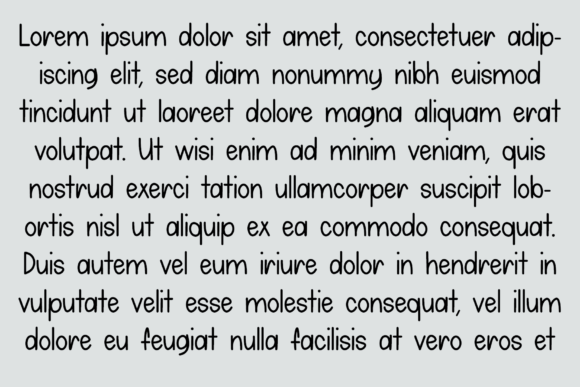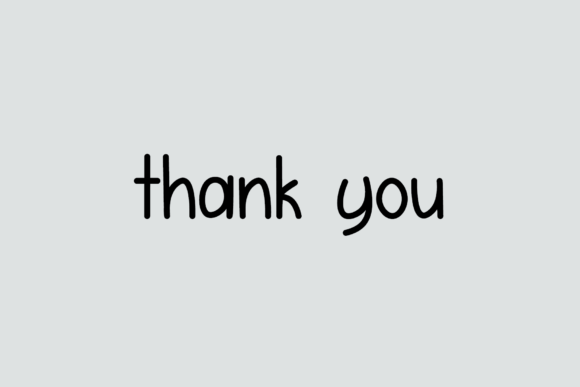
The Perfect Font for a Whimsical Touch
There’s nothing quite like the thrill of finding the perfect font for a design project. It’s like stumbling upon a hidden treasure that instantly elevates your work from ordinary to extraordinary. For me, it happened when I discovered the Geneva Font – a delightful, handwritten typeface that adds a touch of playfulness to any design.
Geneva Font is more than just a pretty face; it’s a versatile tool that can bring a smile to your audience’s face. Whether you’re creating a logo, wedding invitation, or advertisement, this font is sure to add a personal touch. Its quirky charm makes it perfect for designers looking to inject some personality into their work.
Geneva Font Key Features
- Unique Characteristics: Geneva is known for its clean, simple design and is often used in user interface design and digital typography.
- Font Style: Geneva is a sans-serif font, making it highly legible and suitable for body text and headings.
- Font Family: Geneva is part of the Macintosh font family and is closely related to the Helvetica font family.
Designer Review: Geneva Font
Overall, I found the Geneva Font to be a decent choice for certain applications. Here are some of its strengths:
- ✨ Elegant and refined design, making it suitable for high-end and professional projects.
- ✨ Clear and legible, even at smaller font sizes, making it a good choice for body text.
- ✨ Well-suited for display and heading text due to its classic and sophisticated feel.
- ⚠️ Limited versatility – the Geneva Font is more suited for traditional and formal designs.
- ⚠️ May not be the best choice for modern or trendy projects, as it can come across as dated.
- ⚠️ Limited character set support, which may be a concern for certain languages or special characters.
Overall, I’d say the Geneva Font is a solid choice when you need a classic and professional look. However, it may not be the best fit for every project, especially those that require a more modern or experimental design approach.
Geneva Font: A Practical Application Guide
Geneva Font is ideal for creating elegant and sophisticated designs in Canva.
Geneva Font is great for creating professional-looking typography in Adobe Creative Cloud applications.
Geneva Font is perfect for creating polished and professional presentations in PowerPoint or Word.
Geneva Font is commonly used in:
- Business presentations and reports.
- Formal invitations and stationery.
- Editorial and publishing design.
Geneva Font is a timeless and versatile font that can add a touch of elegance to any design project.
Tips for Getting the Most Out of Geneva Font
To get the most out of Geneva Font, try:
- Pairing it with serif fonts for a classic look.
- Using it in bold or italic styles for emphasis.
- Choose the Geneva Font for headings and titles, as it is a classic font that evokes a sense of nostalgia.
- Use the Geneva Font for body text to create a cohesive look throughout the website.
- Pair the Geneva Font with a bold, colorful background to create a vibrant and eye-catching effect.
- Use retro-inspired graphics, such as pixel art or vector graphics, to enhance the retro theme.
- Consider adding a gradient or texture to the background to give the website a more dynamic look.
- Use the Geneva Font as the primary font for the design, as it is a classic font that will add a touch of vintage elegance.
- Experiment with different font sizes and styles to create visual interest and hierarchy.
- Pair the Geneva Font with a distressed or worn texture to give the design a vintage feel.
- Use a combination of bold and italic fonts to create a sense of drama and emphasis.
- Consider adding a pattern or background element, such as a vintage-inspired wallpaper or fabric, to enhance
Project Ideas Using Geneva Font
Project 1: Retro-Themed Website Design
This project involves creating a website that exudes a retro vibe, reminiscent of the 80s and 90s.
To use Geneva Font in this project:
Project 2: Vintage-Inspired Print Design
This project involves creating a print design that incorporates vintage elements and typography.
To use Geneva Font in this project: